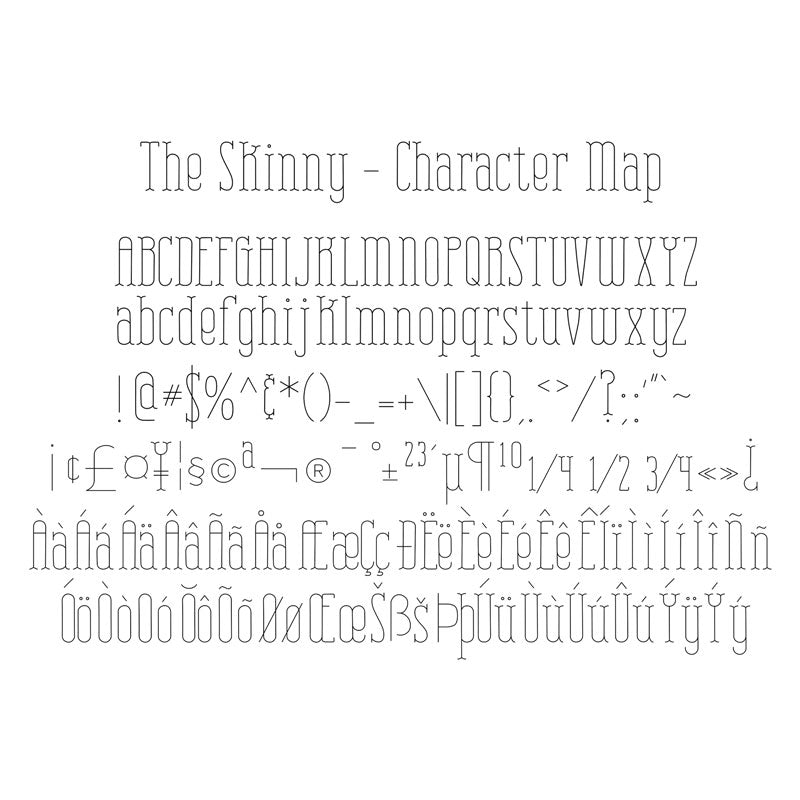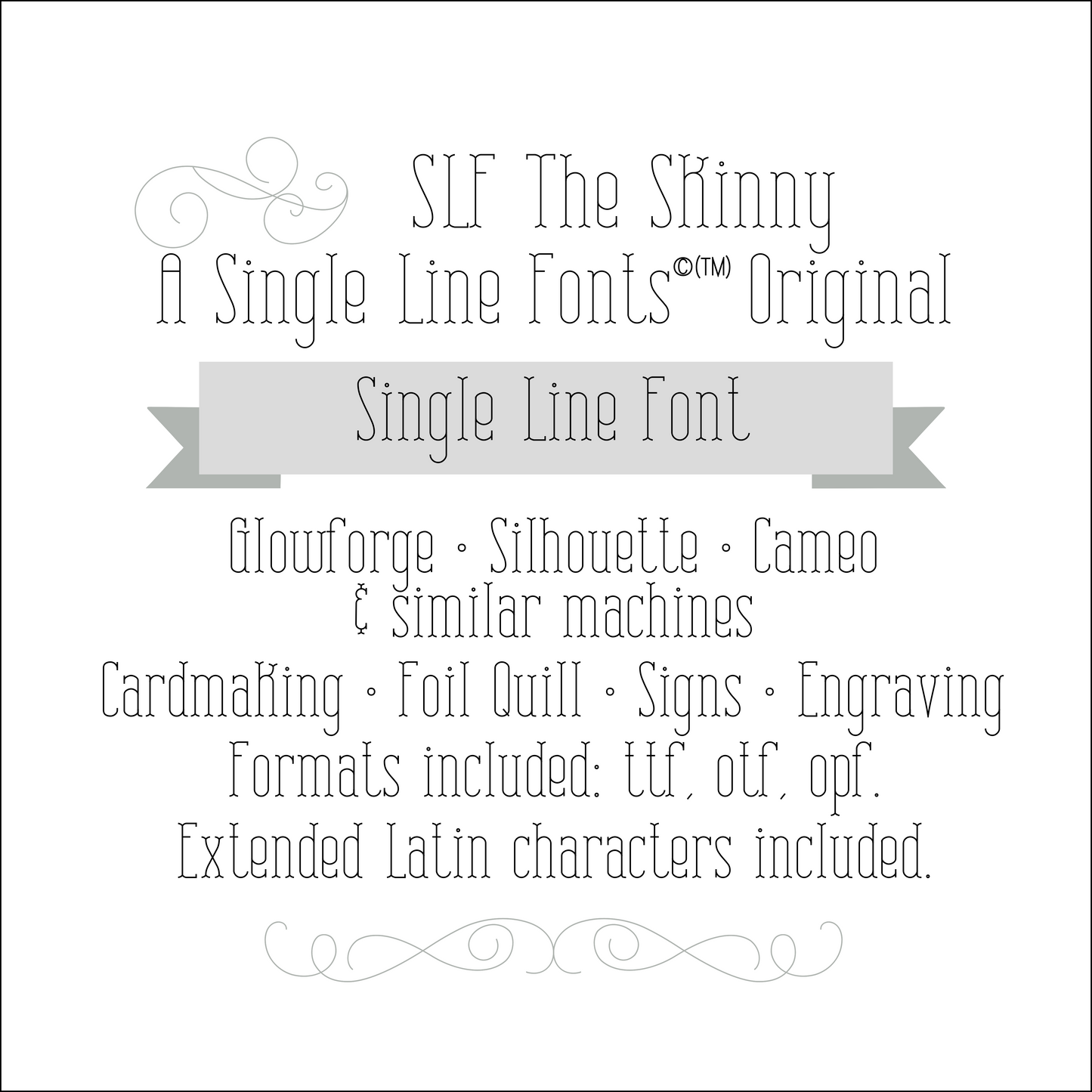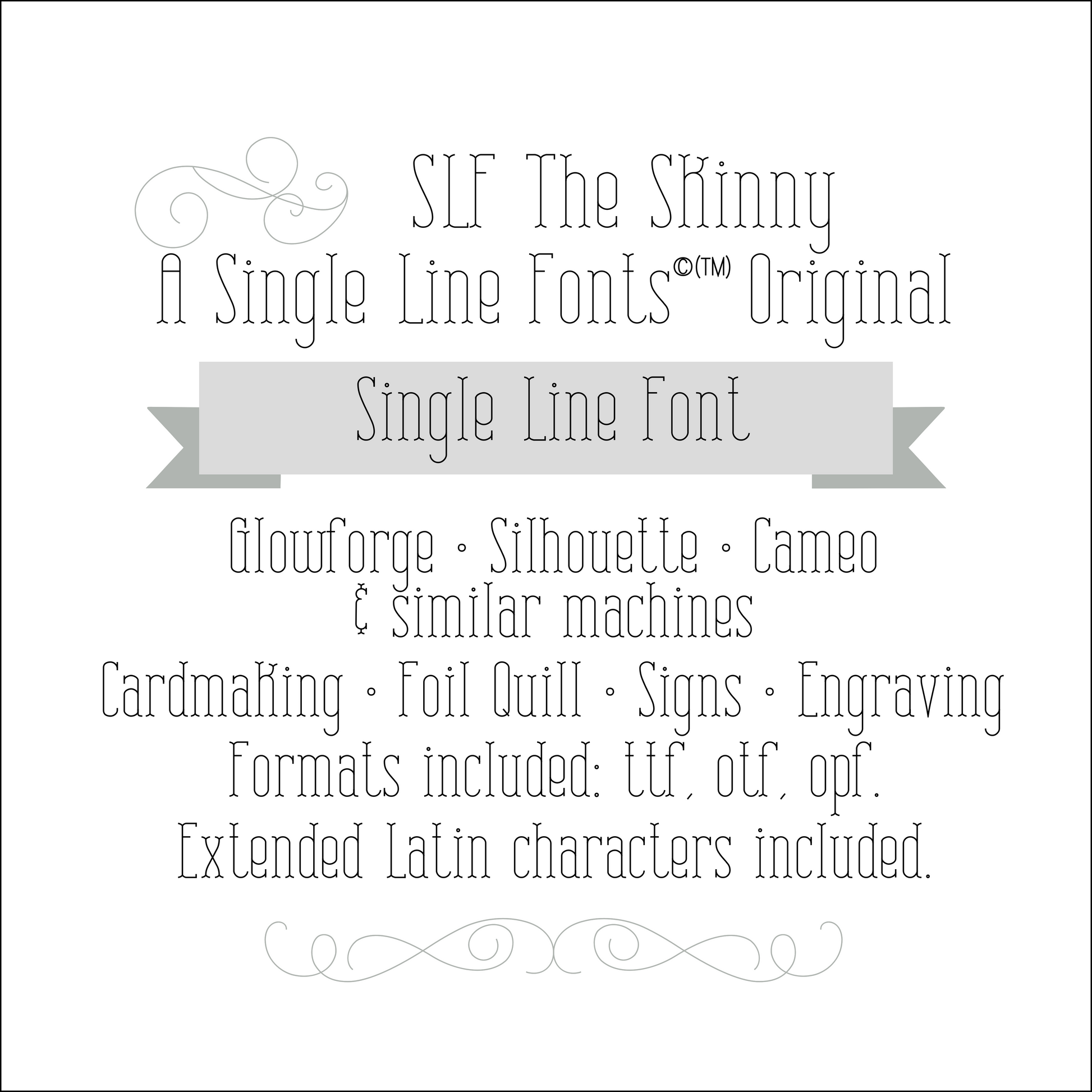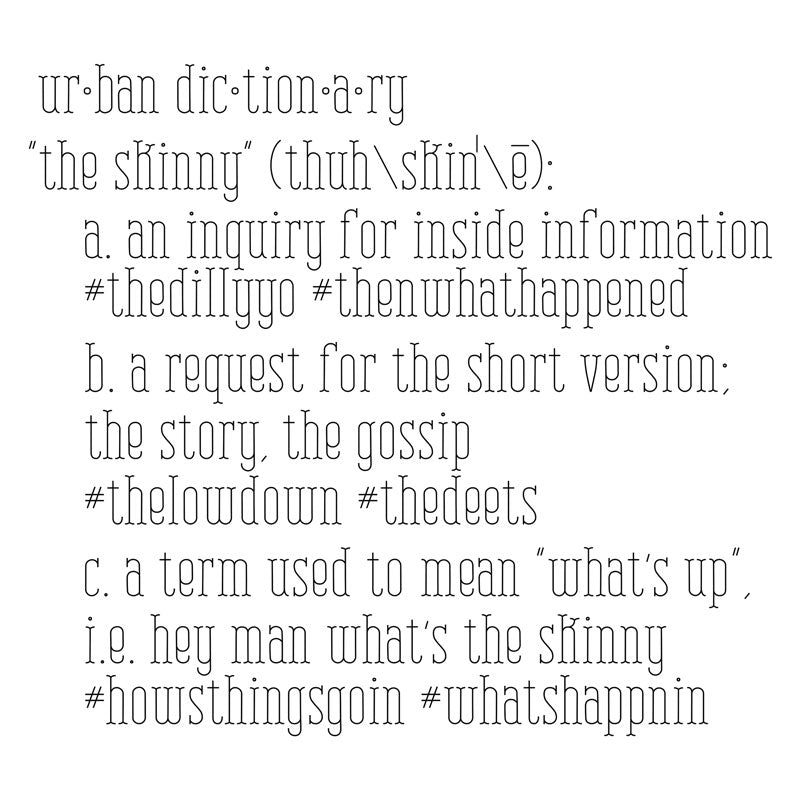
SLF The Skinny – Narrow Single Line Font for Engraving, Labels & Crafts
SLF The Skinny is a fresh, funky single line print font with a fun, unique personality and a narrow footprint that’s great when you need clean text in tight spaces. It’s perfect for engraving, scoring, sketch pen tools, Foil Quill projects, labels, and modern craft designs.
This monoline font includes a complete character set with letters, numbers, punctuation, symbols, and accented characters (see the character map image).
• Pen plotters and Foil Quill projects
• Labels, tags, modern layouts, and small-space text